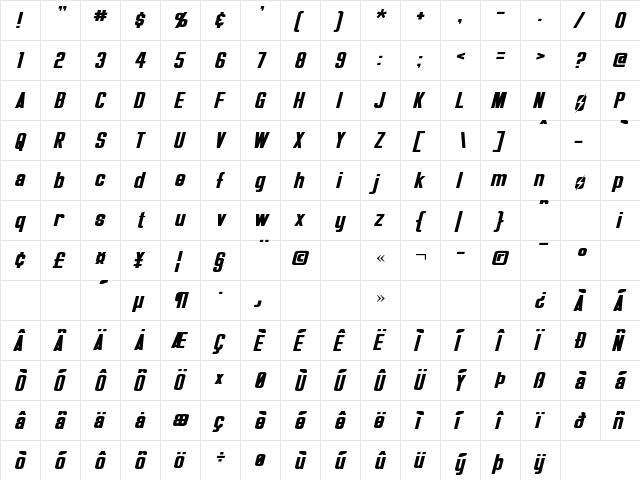
Overseer Oblique Oblique
Design Context for Overseer Oblique Typeface
Overseer Oblique is a composed and adaptable typeface that performs quietly and consistently across a wide range of design contexts. Its italic angle brings a sense of urgency and motion to the letterforms.
Pro Tip: Use Overseer Oblique for emphasis, pull quotes, and subheadings where its slanted energy can add rhythm to the layout.